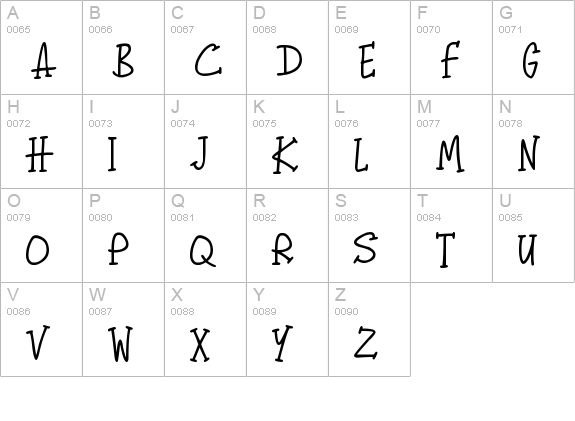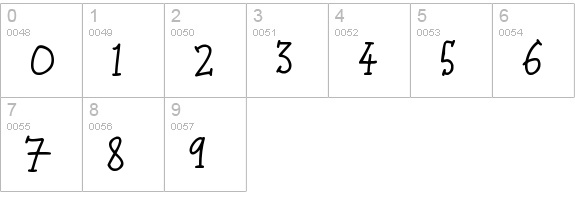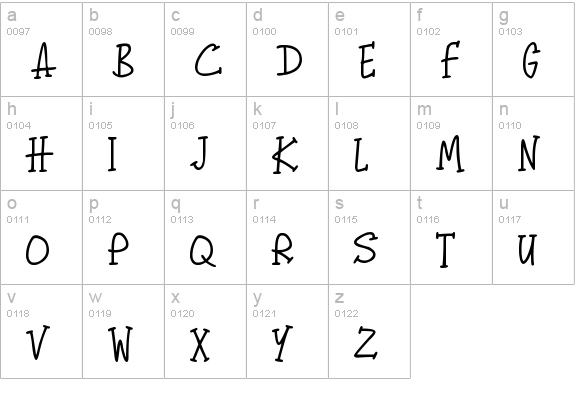
Begorra is a free for personal use font in the Script > Handwritten category, designed by Darrell Flood. It has been downloaded 154 times and is available for Windows, Mac and Linux.
Begorra font is a whimsical and playful typeface that is sure to add a touch of charm to your projects. With its unique and quirky design, Begorra is perfect for a variety of creative applications, from branding to social media posts to greeting cards. This free font is freely available to download at FontsMarket.com, making it easily accessible for all your design needs. Embrace the fun and creativity that Begorra font brings to your projects and watch as it adds a delightful flair to your designs.